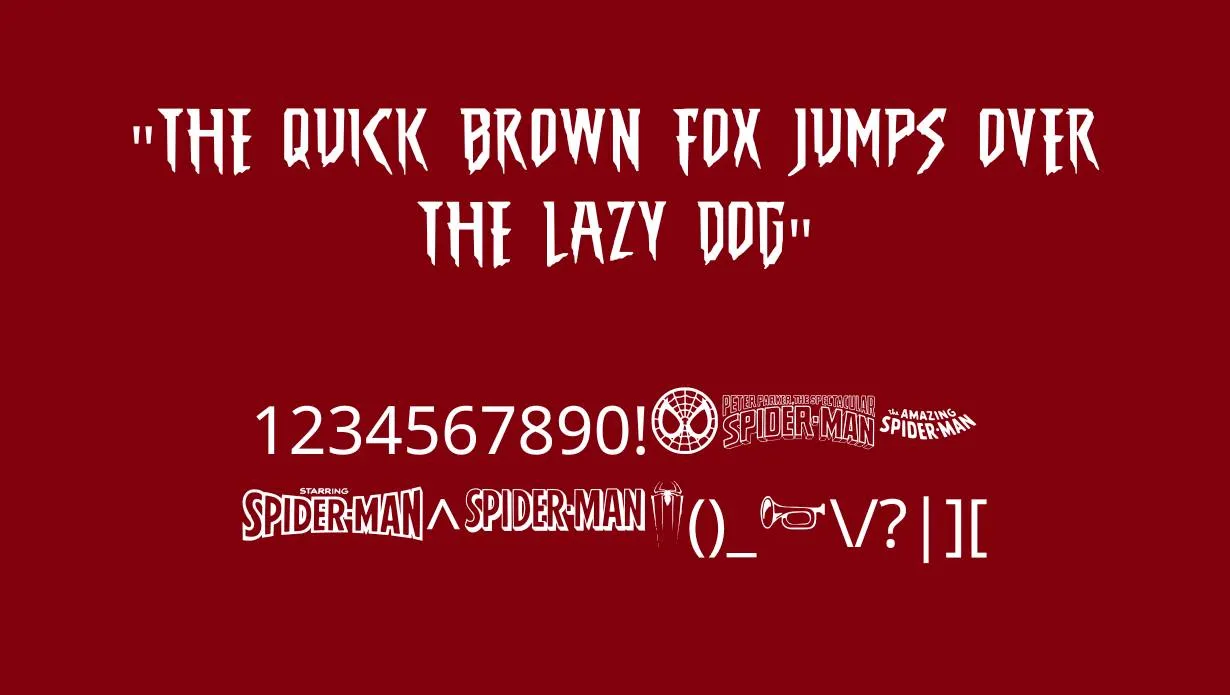
The font used for The Amazing Spider-Man is inspired by the typography seen in the comic books of Spider-Man and is frequently selected for fan art, gaming, and creative projects that pay homage to the popular superhero.
The font adds an element of comic book culture and excitement to your design work.
| Name | The Amazing Spider-Man Font |
| Designer | SpideRaYsfoNtS |
The Amazing Spider-Man Font Family